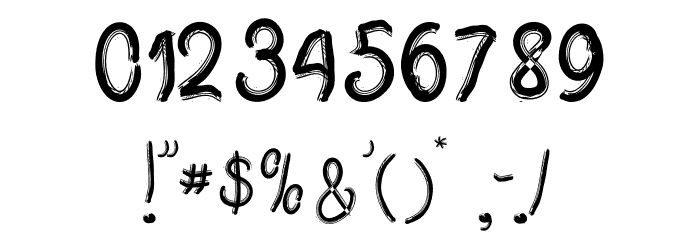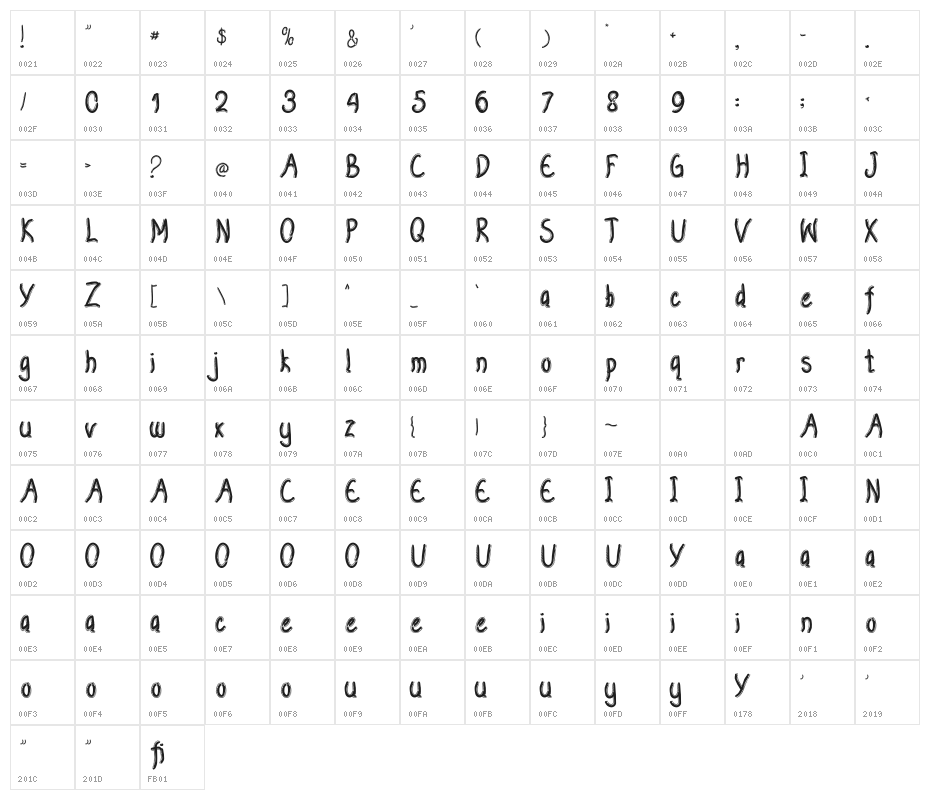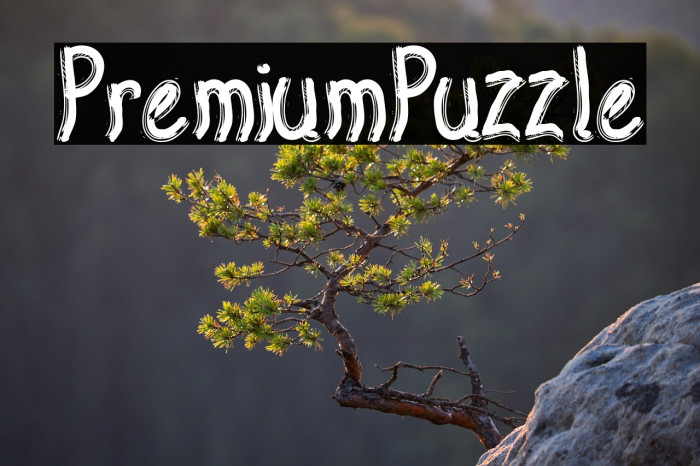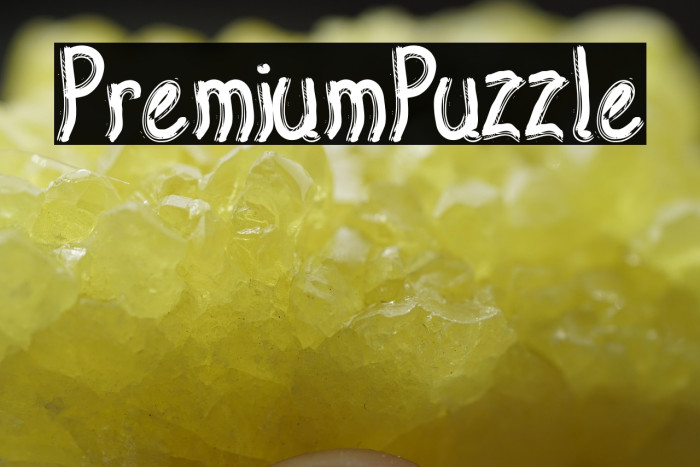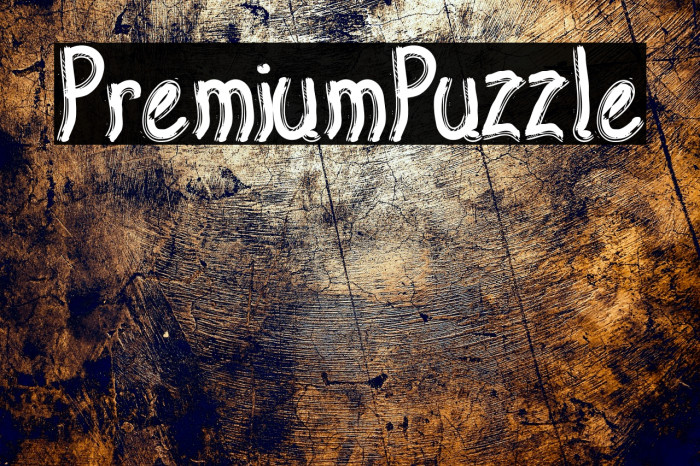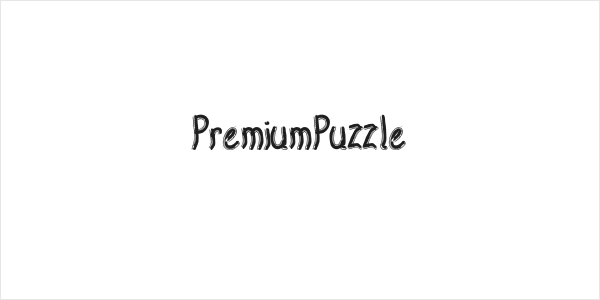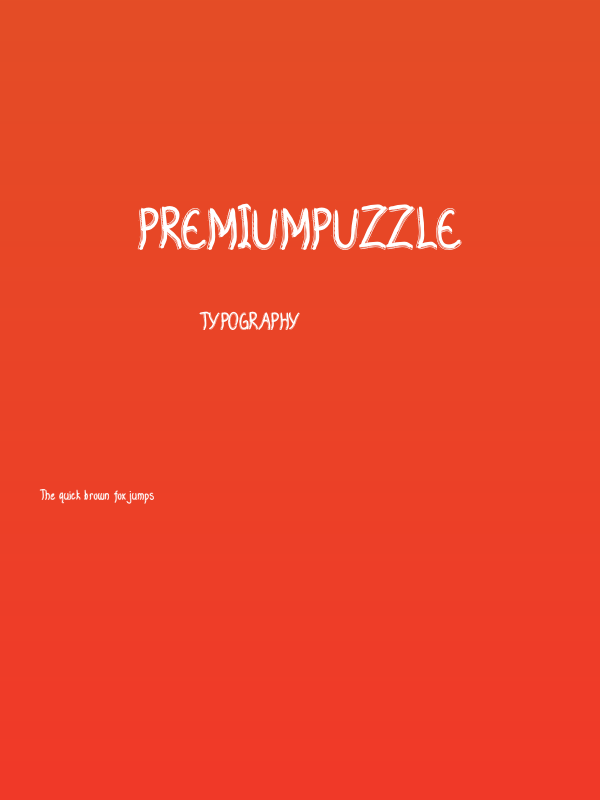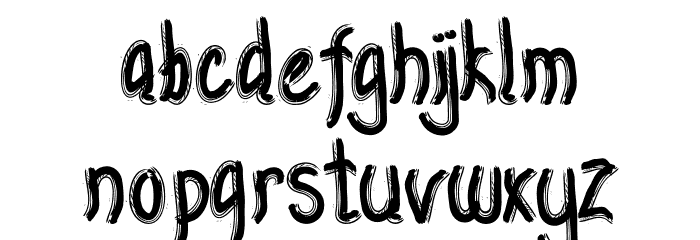
PremiumPuzzle Font
PremiumPuzzle Description
This font exudes a playful and artistic vibe, characterized by its hand-drawn appearance and uneven, brush-like strokes. The letters have a dynamic and energetic feel, with varying thicknesses and a slightly rough texture that adds to its charm. The uppercase and lowercase letters maintain a consistent style, while the numbers and special characters complement the overall aesthetic. This font is ideal for projects that require a creative and informal touch, such as children's books, posters, or artistic branding. Its unique style makes it stand out, offering a fresh and lively alternative to more traditional fonts.